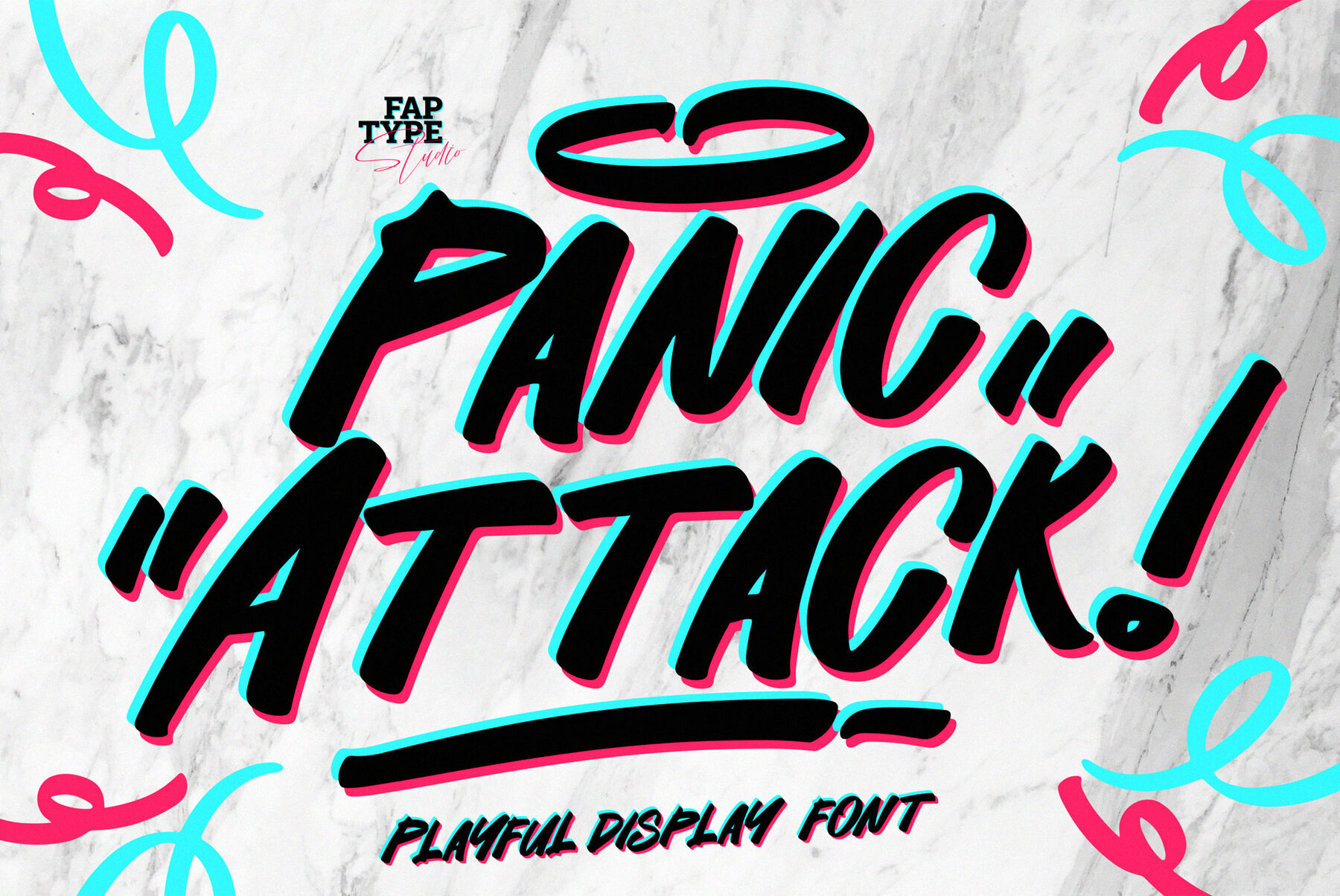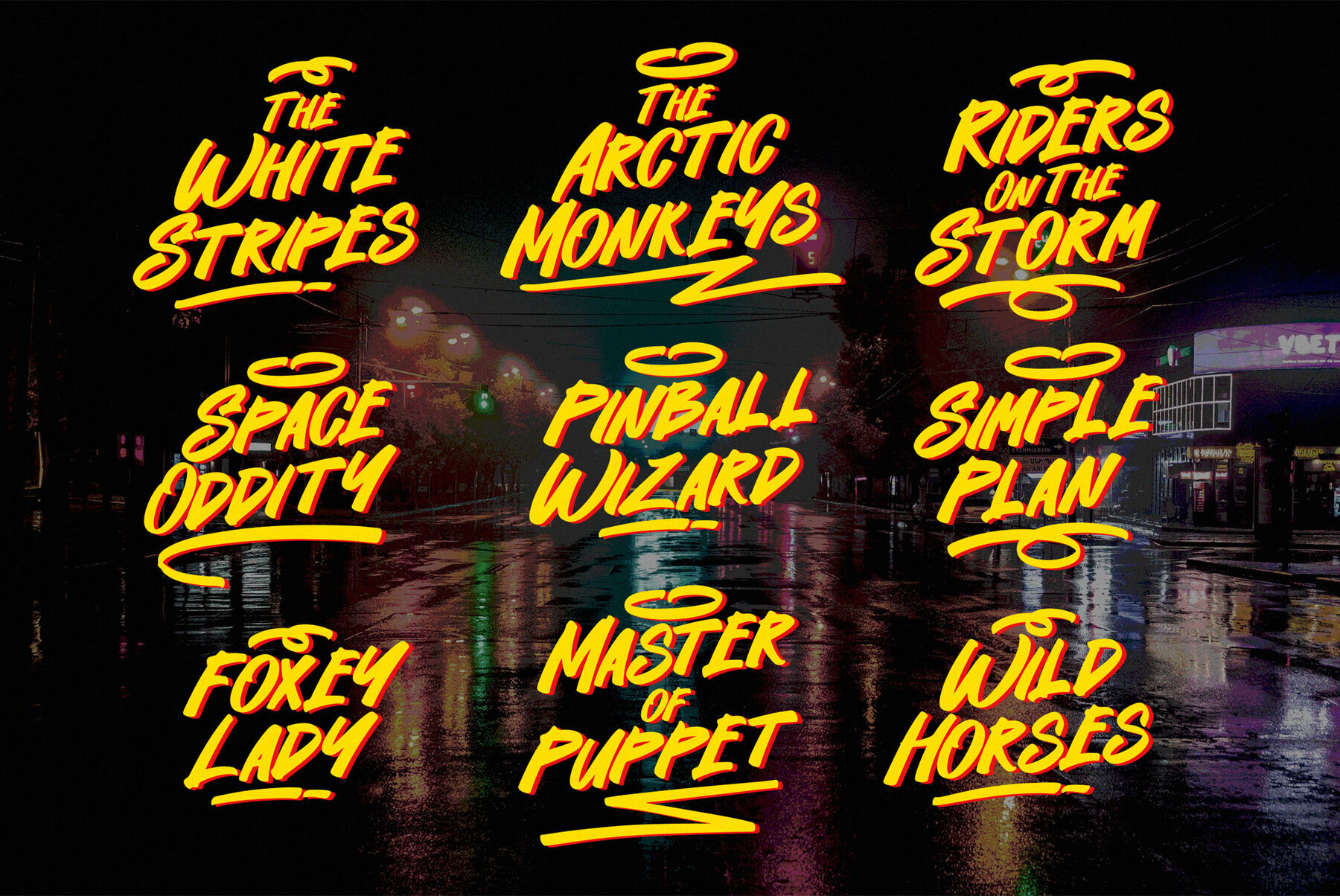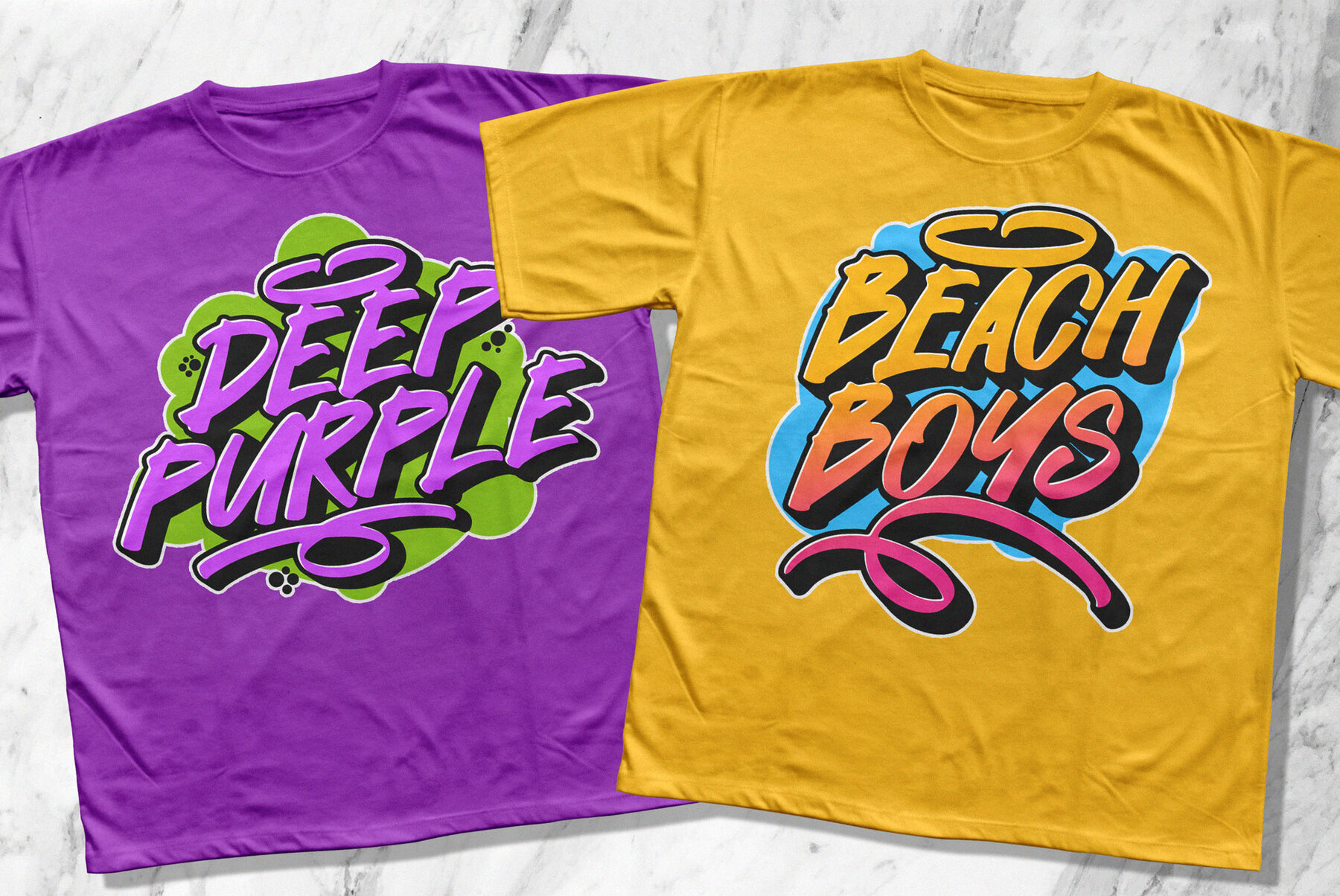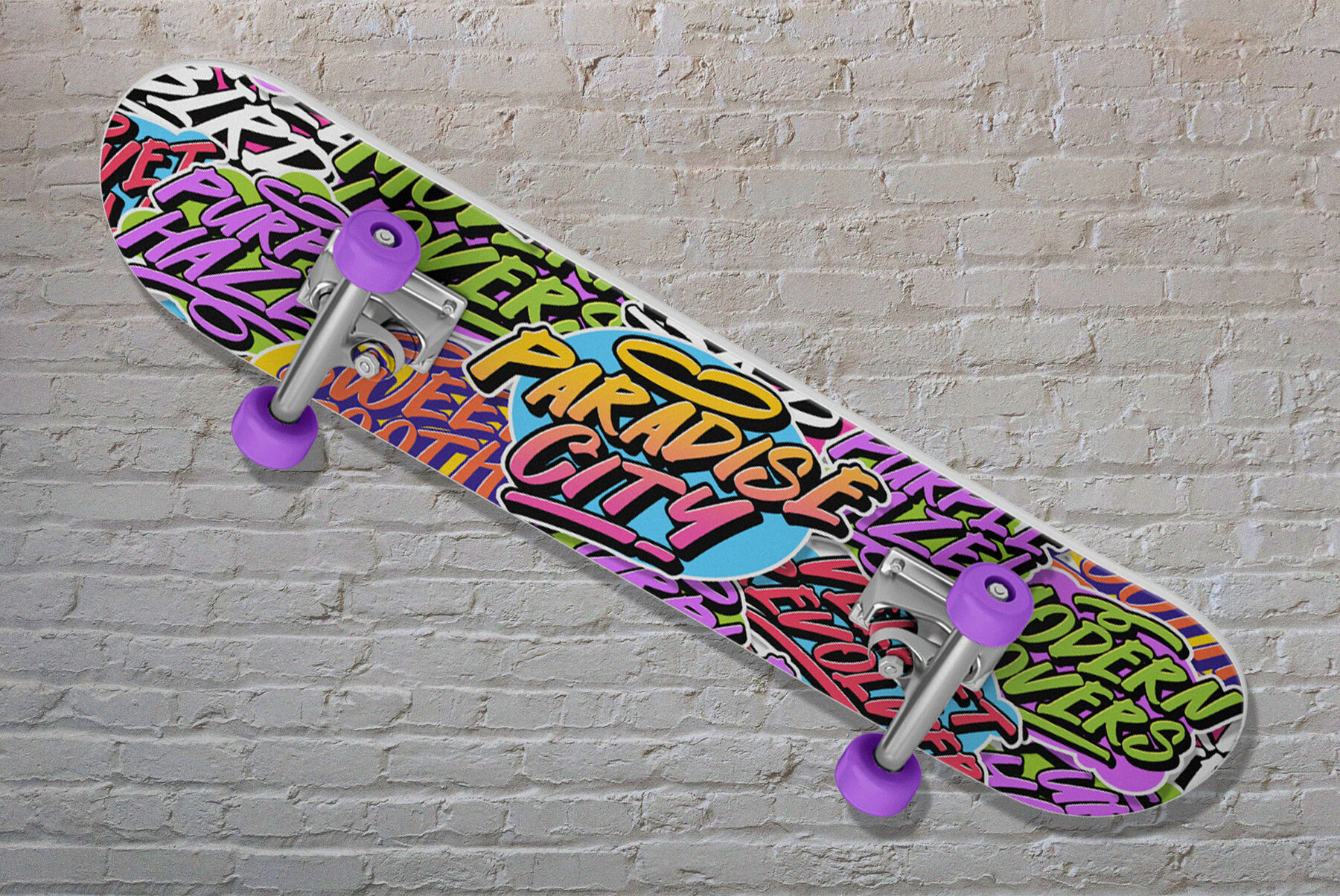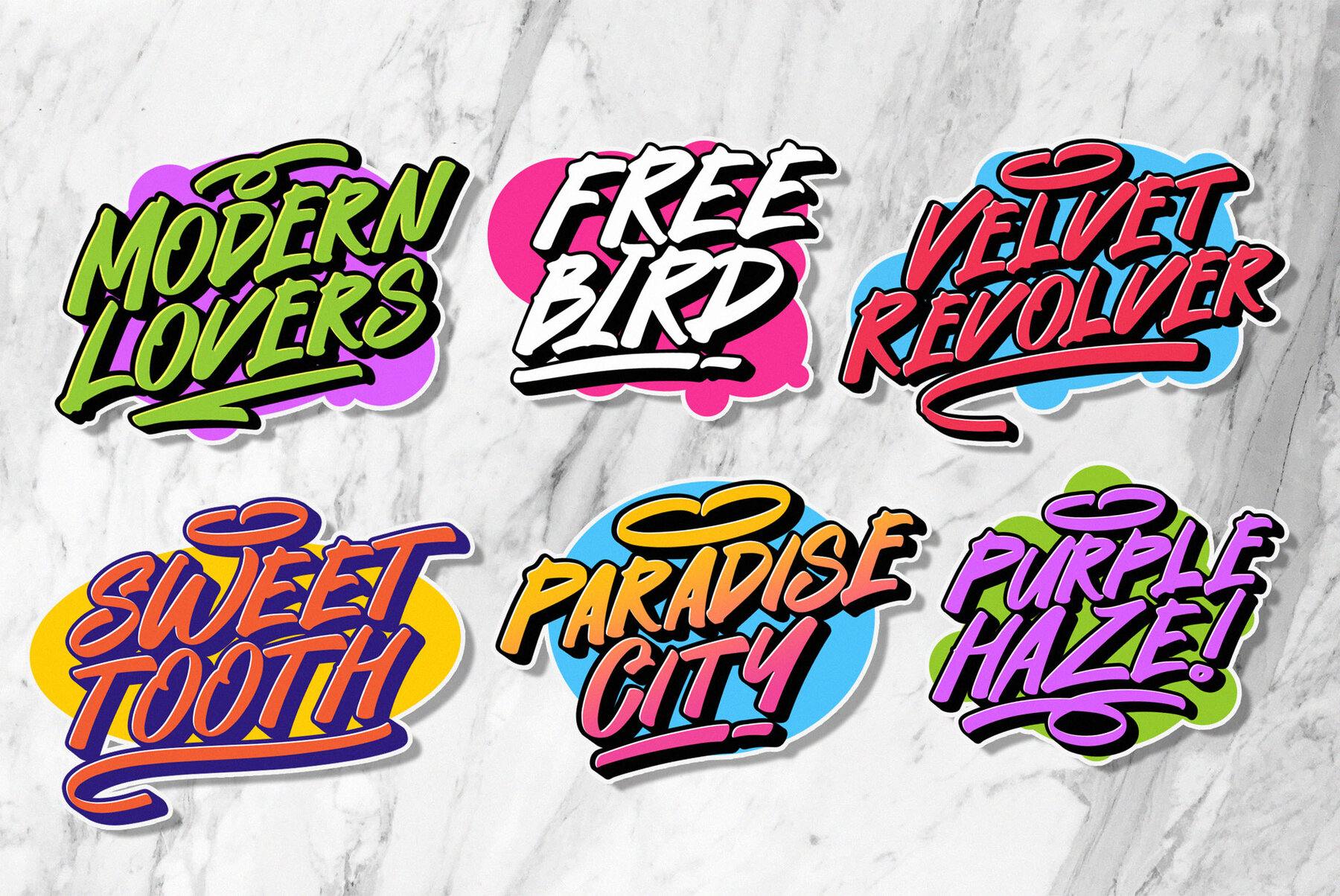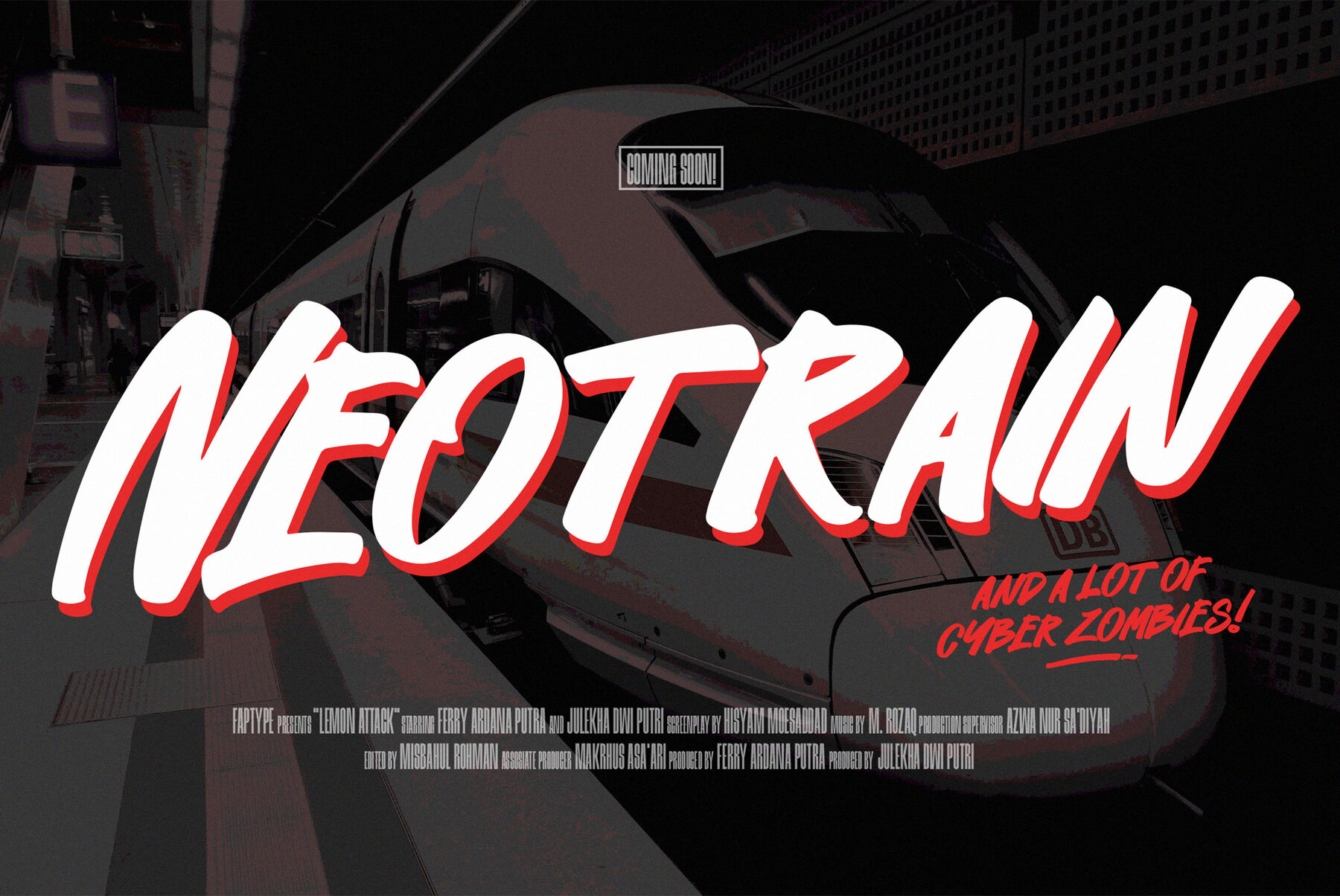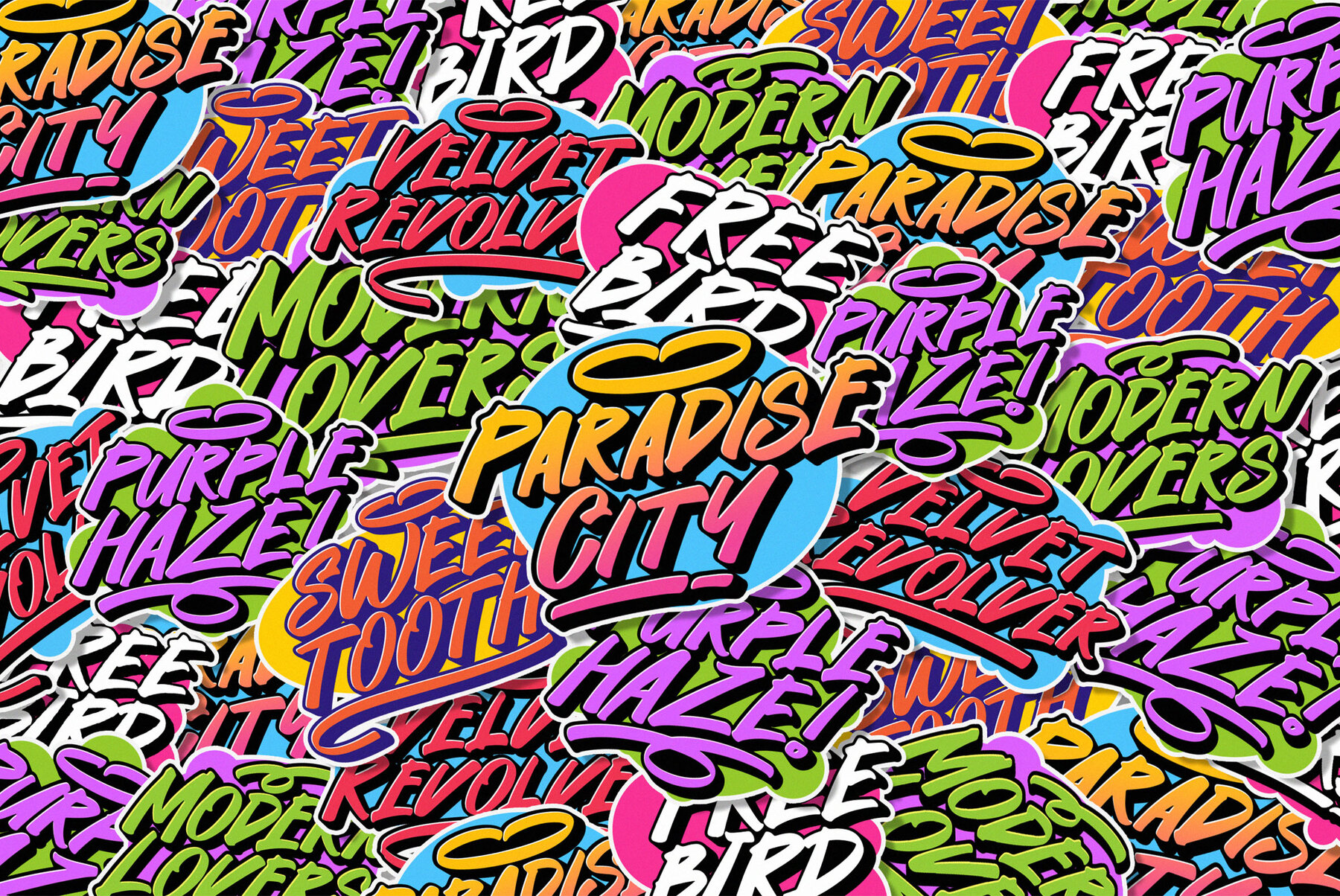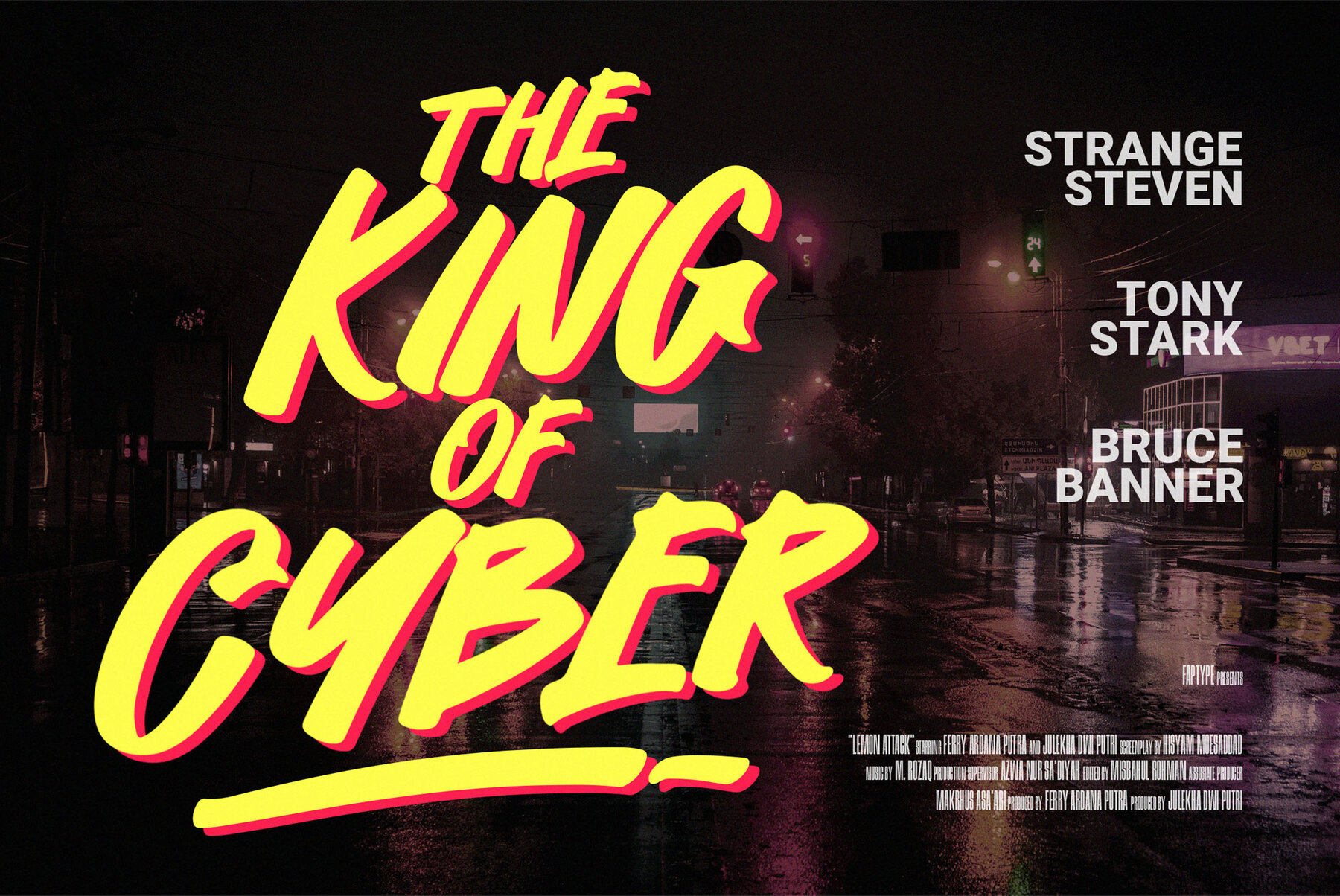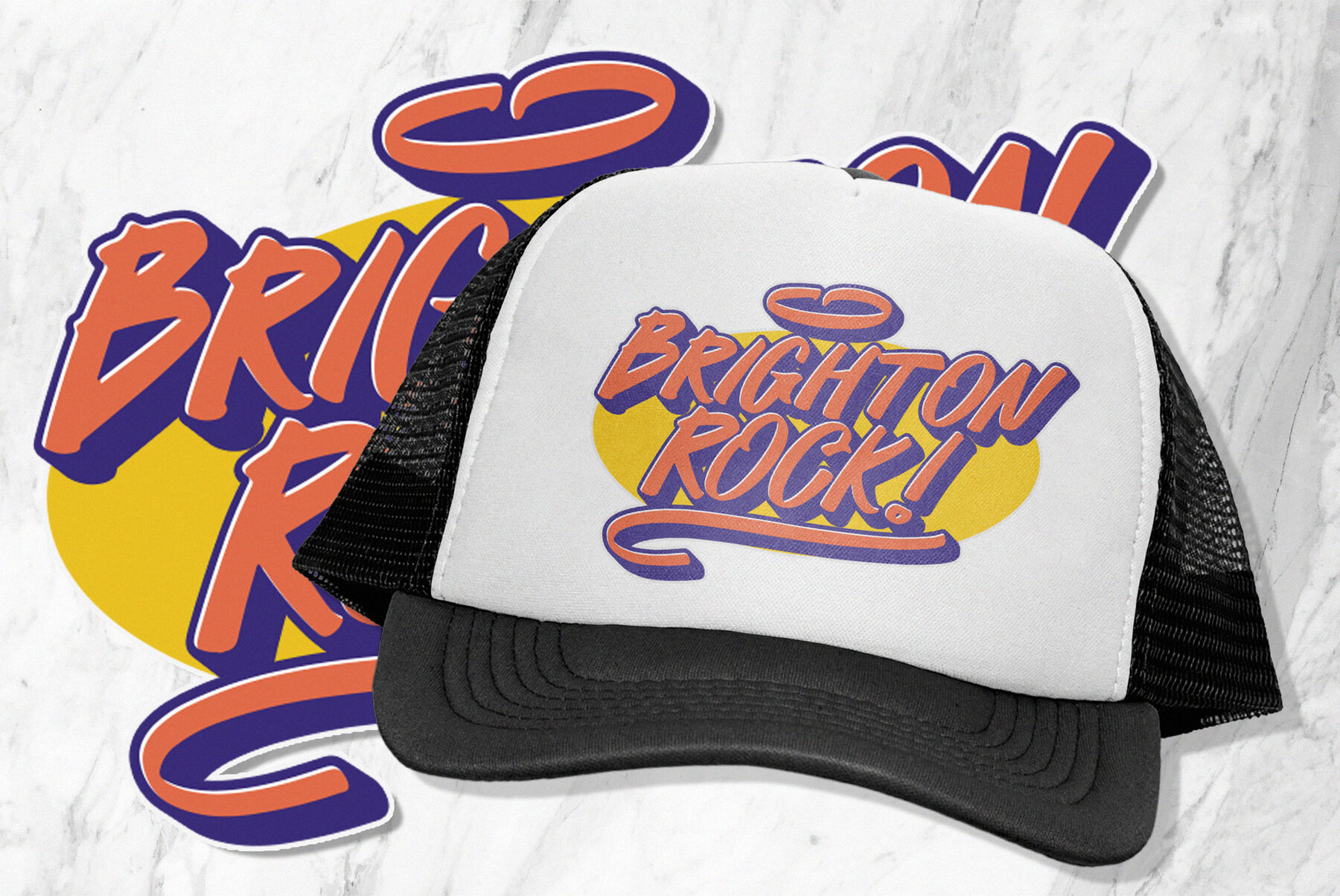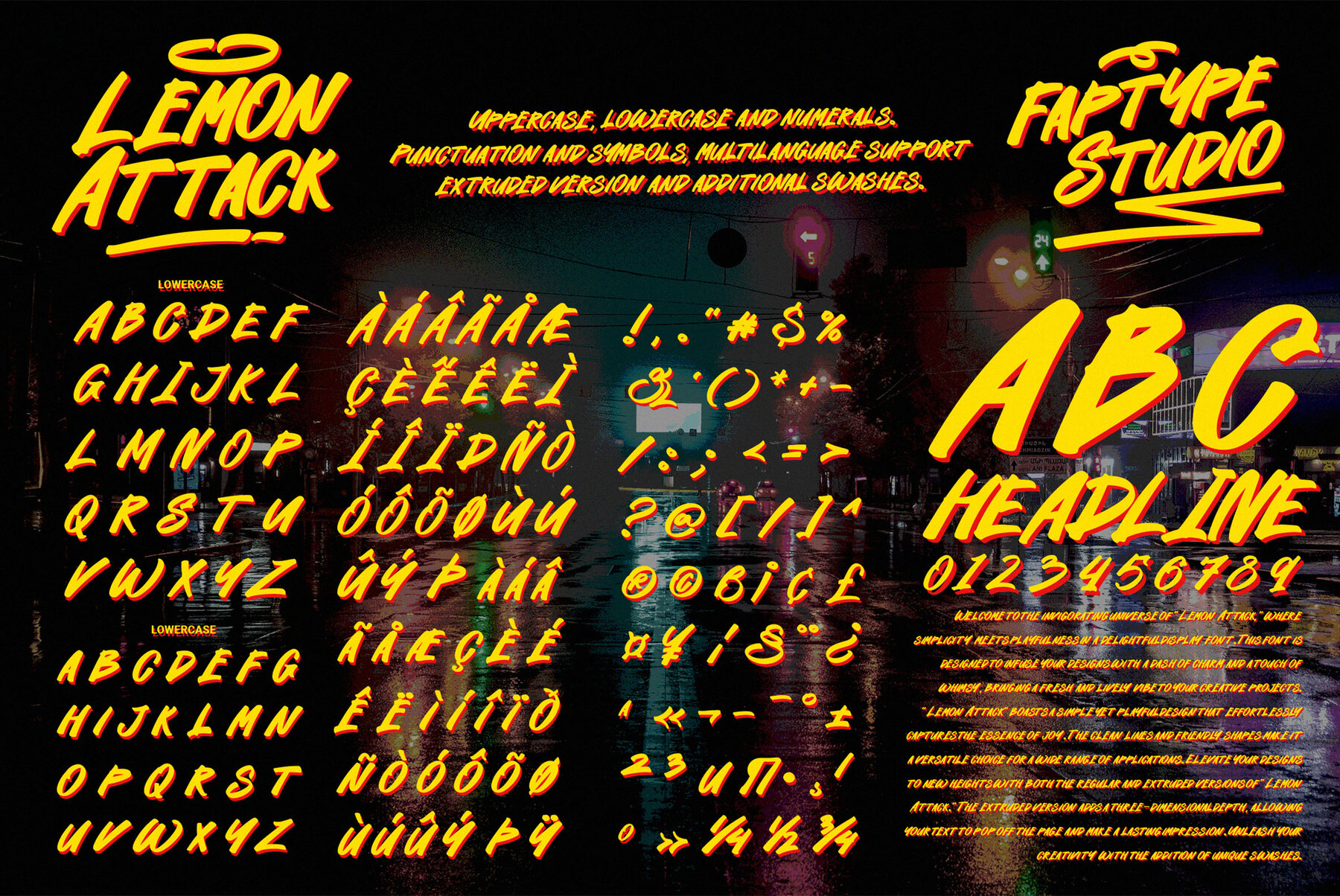
Panic Attack Font
Panic Attack
Panic Attack Extruded
Dive into the dynamic world of design with "Panic Attack," a font that seamlessly blends simplicity with playfulness. This unique display font is crafted to bring a touch of whimsy to your creative endeavors, making it a perfect choice for projects that demand both charm and versatility. The heart of "Panic Attack" lies in its straightforward yet playful design. Each letter exudes a sense of fun and approachability, making it suitable for a wide range of creative applications. Elevate your designs to new dimensions with "Panic Attack." The font offers both regular and extruded versions, providing the opportunity to add a captivating 3D effect. Your text will leap off the page, creating an impactful visual presence. Unleash your creativity with the inclusion of unique swashes. These artistic embellishments add a personalized and whimsical touch to your typography, allowing you to infuse your designs with character and flair. "Panic Attack" is the ideal font when you want to inject a sense of spontaneity and playfulness into your projects. Whether you're working on branding, packaging, or creative displays, this font effortlessly conveys a lively and engaging tone. Versatile Applications: Panic Attack features: